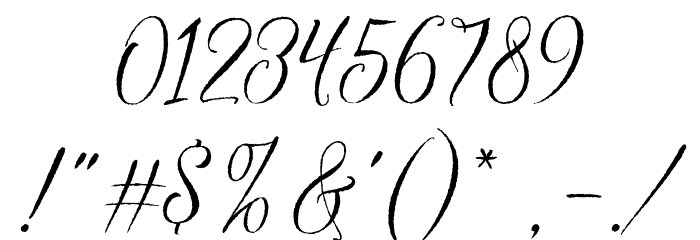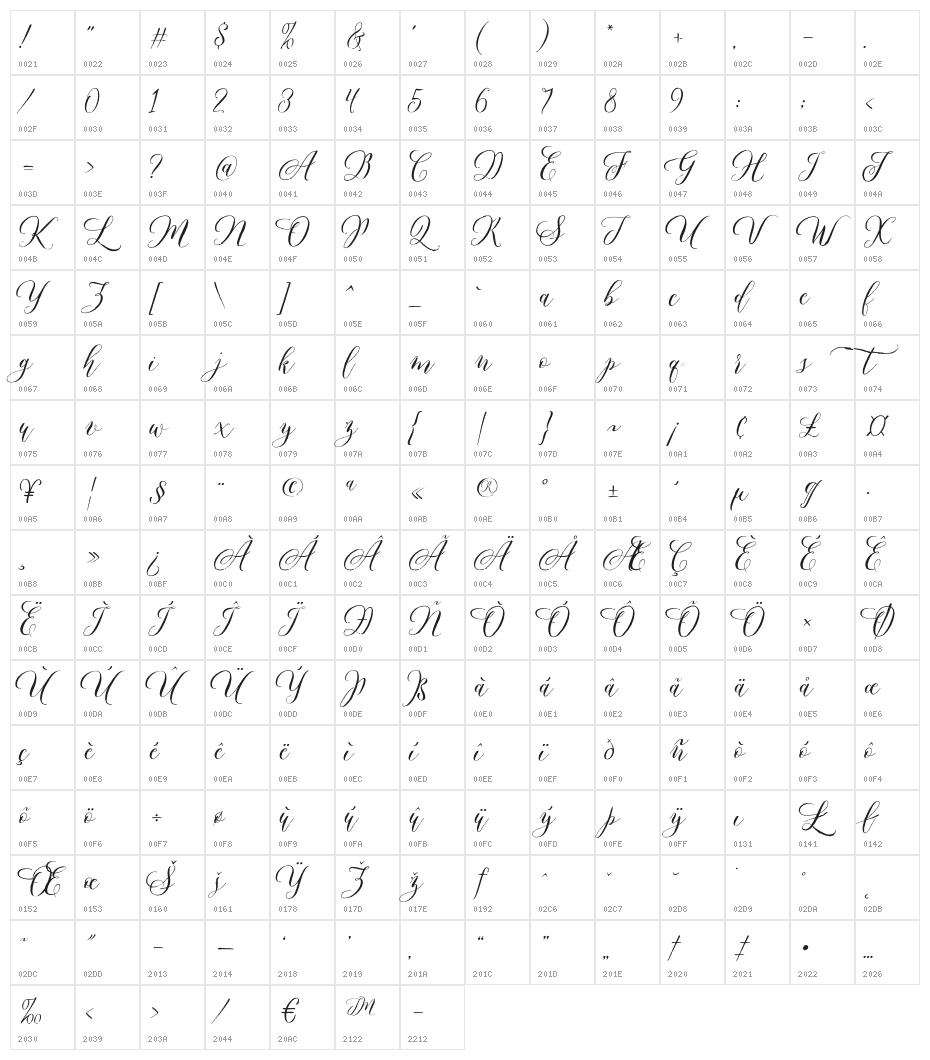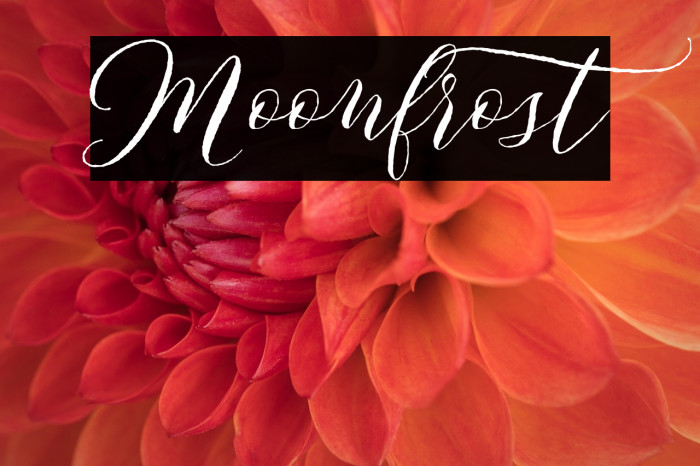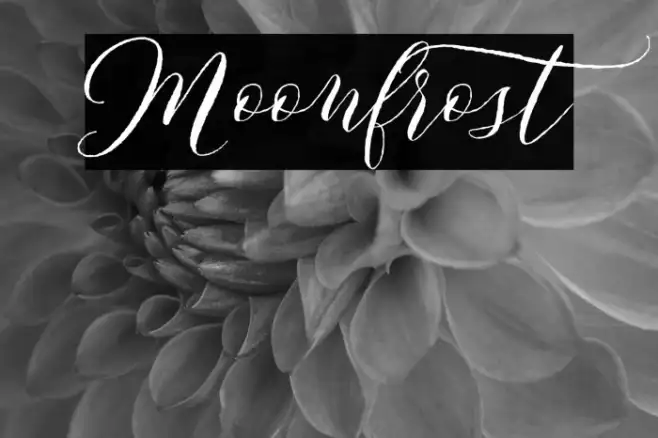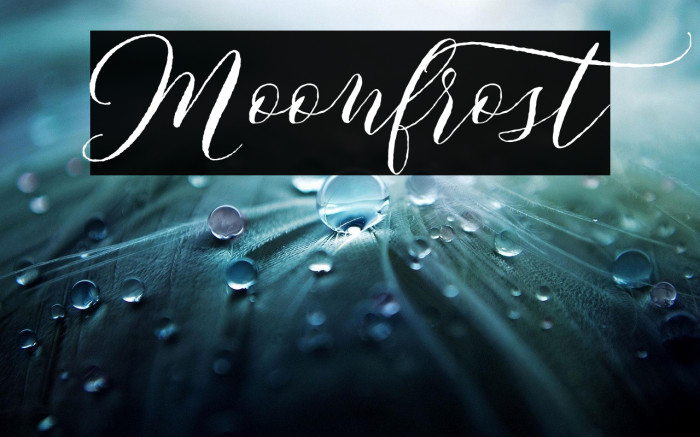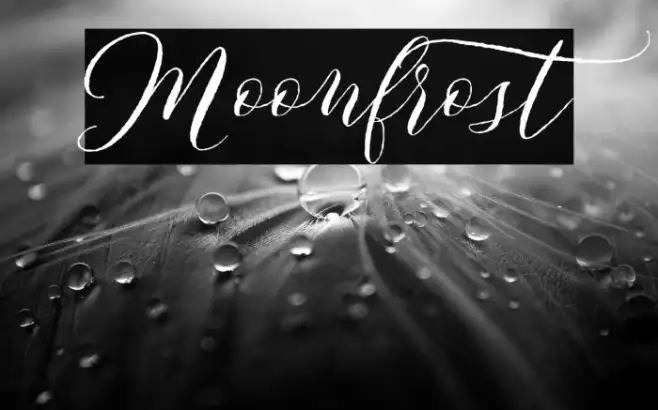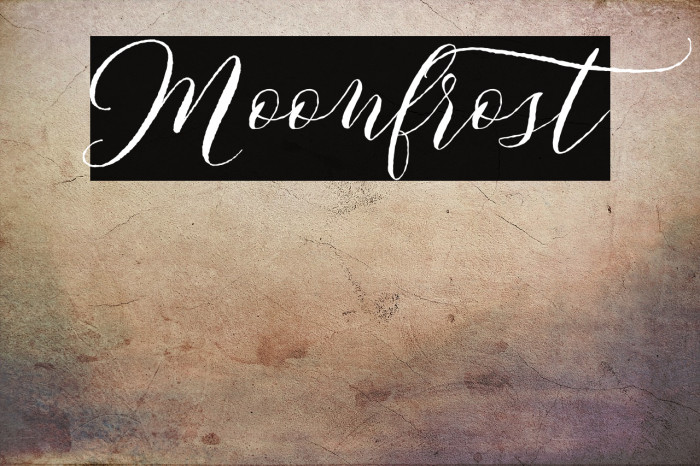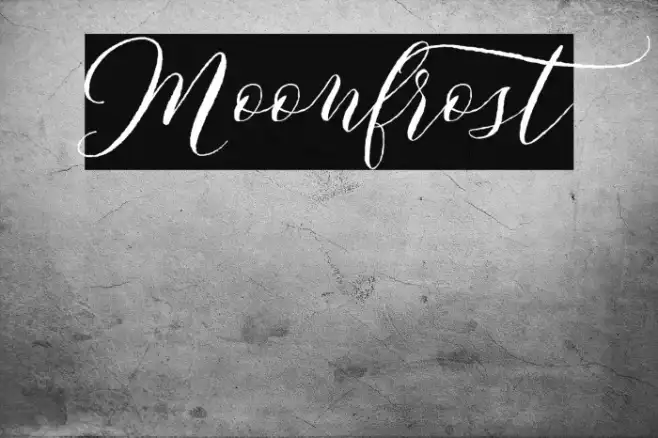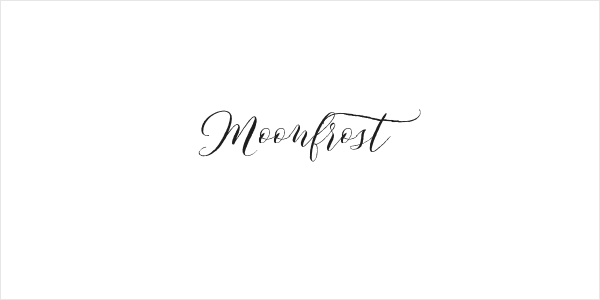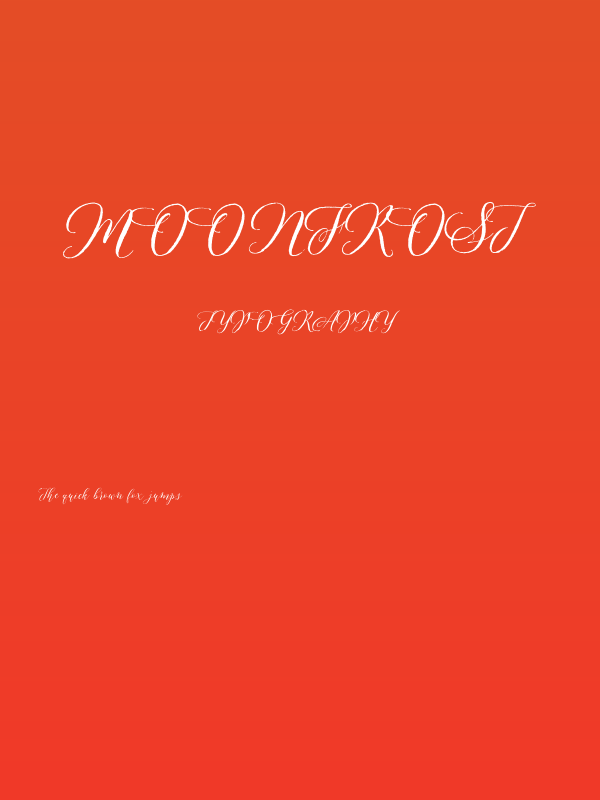
Moonfrost Font
Moonfrost Description
This elegant script font features flowing, cursive letterforms with a sophisticated and artistic flair. The uppercase letters are characterized by their graceful loops and swashes, adding a touch of refinement and fluidity. The lowercase letters maintain a consistent style, with smooth connections and a slight slant that enhances readability. The numerals are designed to complement the overall aesthetic, with a balanced mix of curves and straight lines. Special characters are thoughtfully integrated, maintaining the font's cohesive look. The font's delicate strokes and high contrast between thick and thin lines give it a dynamic and lively appearance, making it suitable for various creative applications.
| Overall Style | Elegant, Artistic |
| Proposed Projects | Ideal for wedding invitations, branding, greeting cards, and elegant packaging design. |